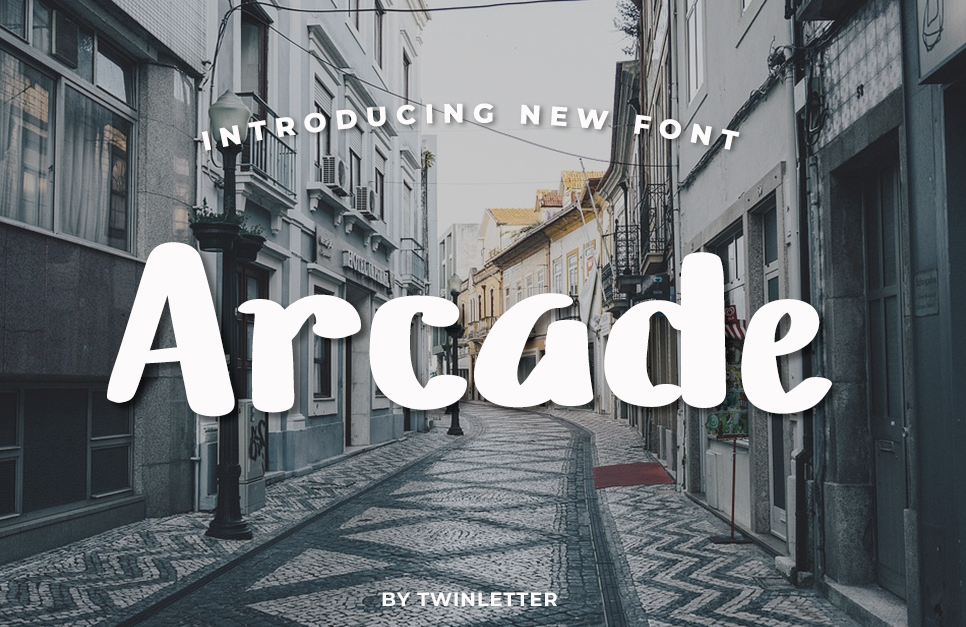
Arcade Font
Arcade is a new font look with a relaxed, smooth form, made with original handwriting, flexible, fun and cute, with basic san serif
Very useful for making your personal logo, title line, paragraph or brand. It's also suitable for cosmetic posters, fashion magazines, book covers, movie titles or simple quote designs, merchandise designs. or whatever your design needs. with a free and fun style, let's use this font now